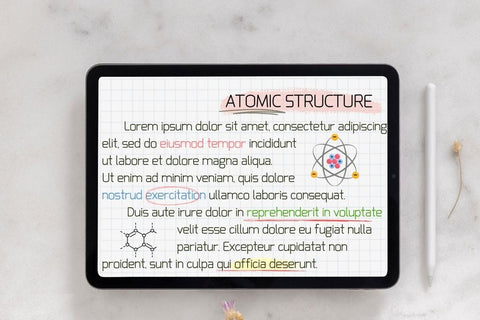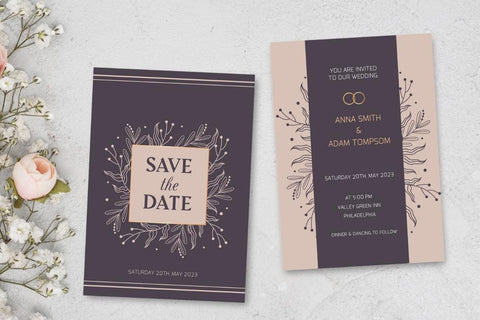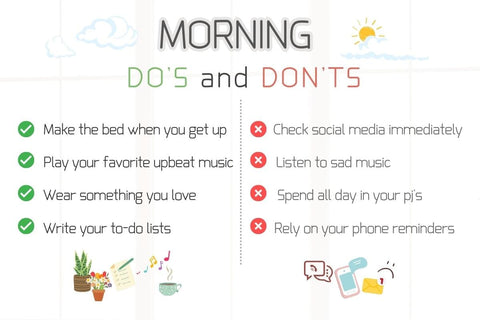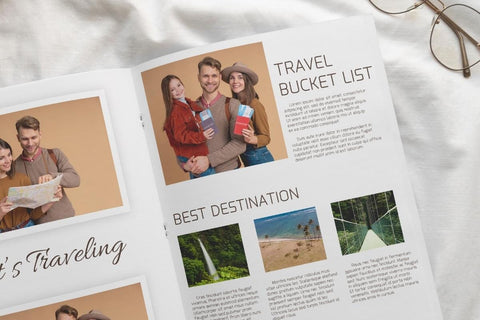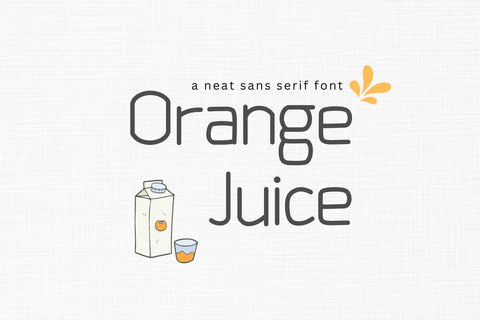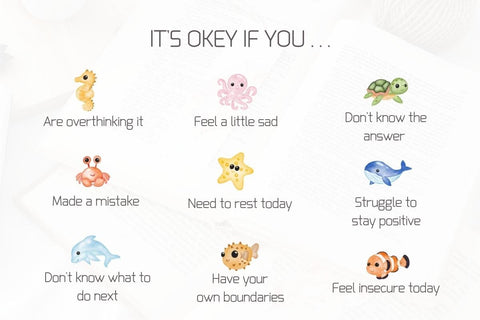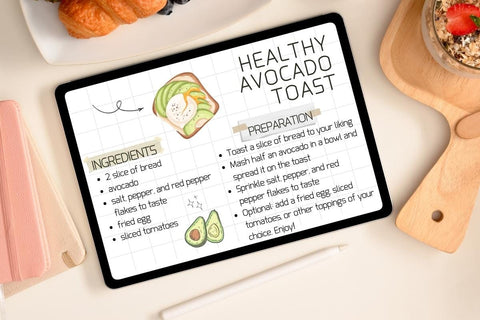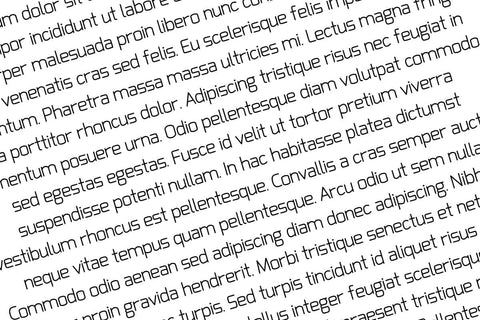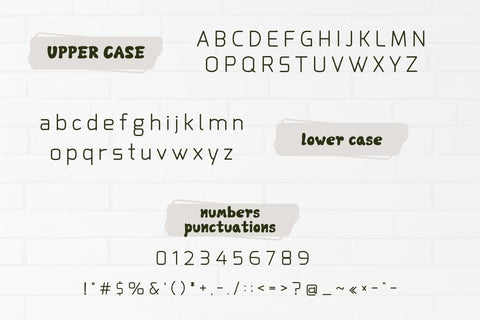
Orange Juice - Clean Sans Serif Font
Orange Juice Font is a simple, neat handwritten font, perfect for digital note-taking. You can use this font in various projects – blog posts, logos, branding, digital planners, invitations, greeting cards, planners, photo albums, decorations, and much more.